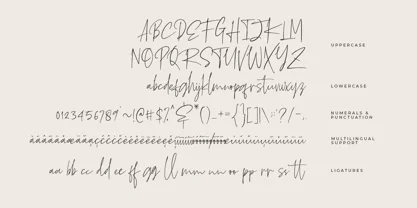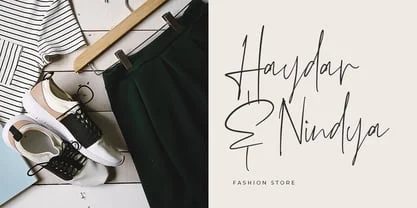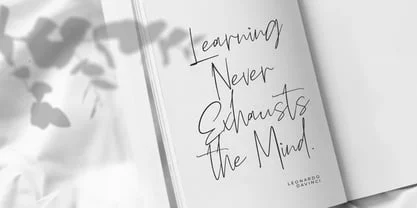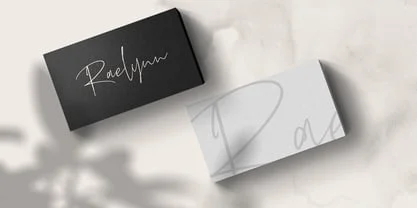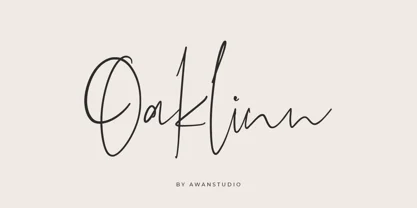
Oaklinn Font
When a design brief calls for both controlled contrast that rewards close inspection and immediate visual impact, type choices matter — Oaklinn answers that brief. The typeface brings an elegant, calligraphic sensibility to a broad range of creative disciplines, with distinctive character without sacrificing readability that holds up whether the work is print-first or screen-first.
In practice, Oaklinn proves particularly effective for perfume labels, fashion editorials, editorial layouts, signage systems, logo design. Designers reaching for it find that the type decisions feel resolved rather than laboured — a useful quality when client timelines are tight.
The range of applications extends to annual reports, web design, packaging design, event signage. That breadth is deliberate: the proportions and spacing were stress-tested across a wide range of mock briefs before the typeface was finalised.
The consistent rhythm of Oaklinn across a full paragraph creates the kind of even grey value that makes extended reading comfortable, a detail that matters more in long-form content than its subtlety might suggest.
In-house creative teams at consumer brands find Oaklinn a reliable choice for projects that demand both personality and restraint. The design avoids the self-conscious quirkiness that dates quickly, settling instead for considered distinctiveness that holds up over time.